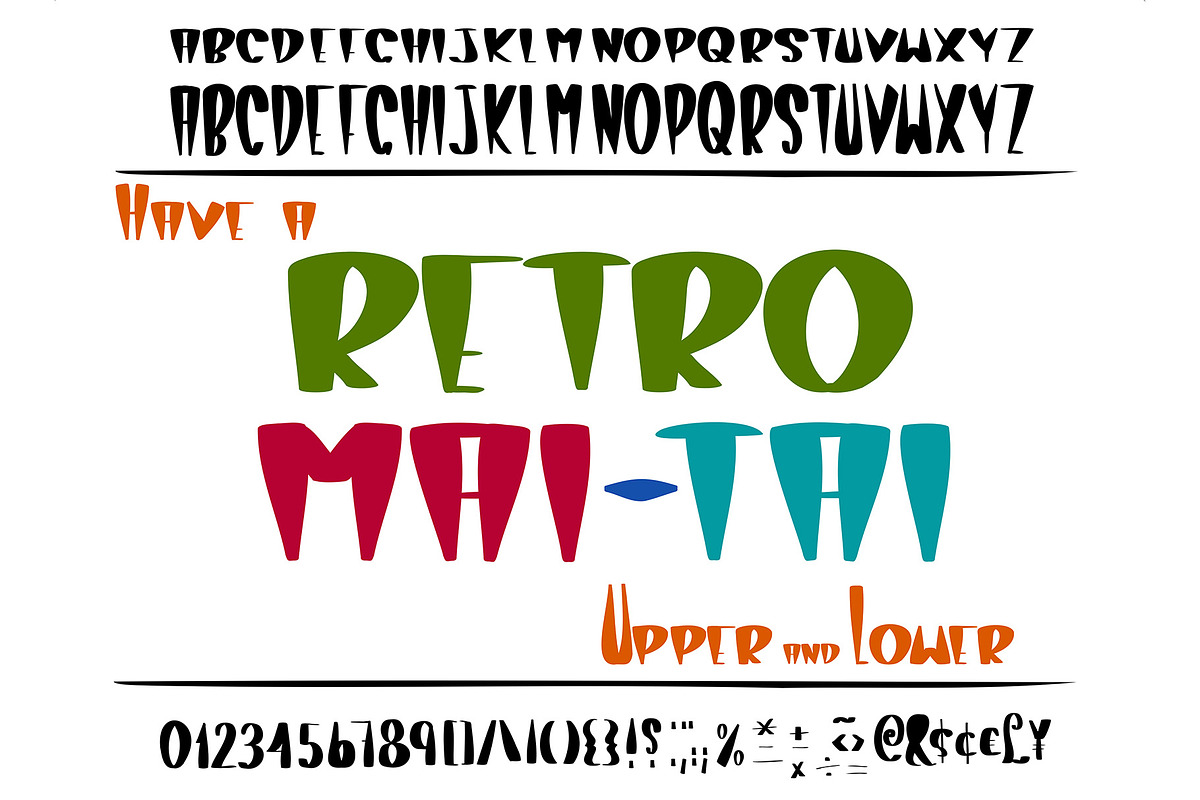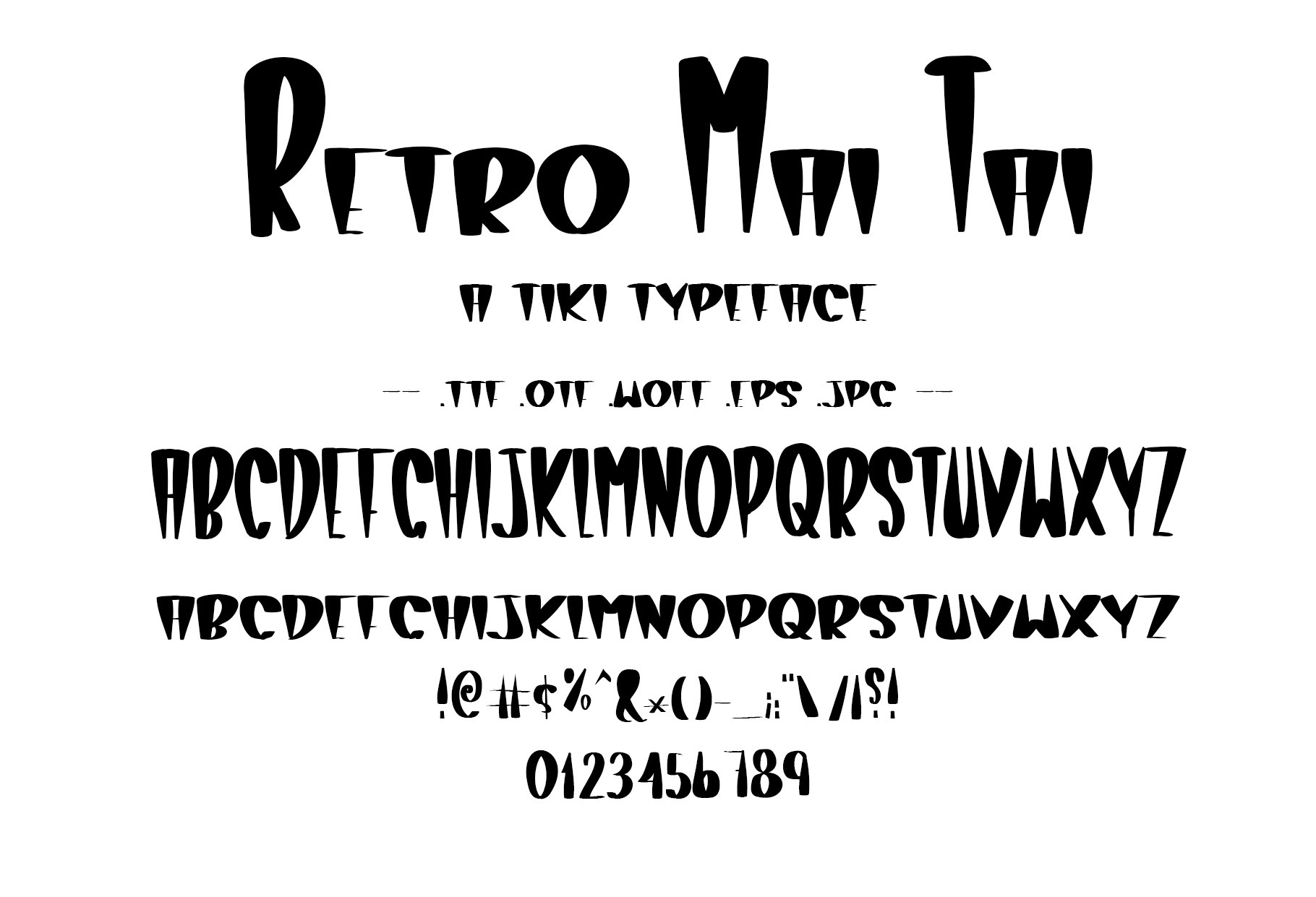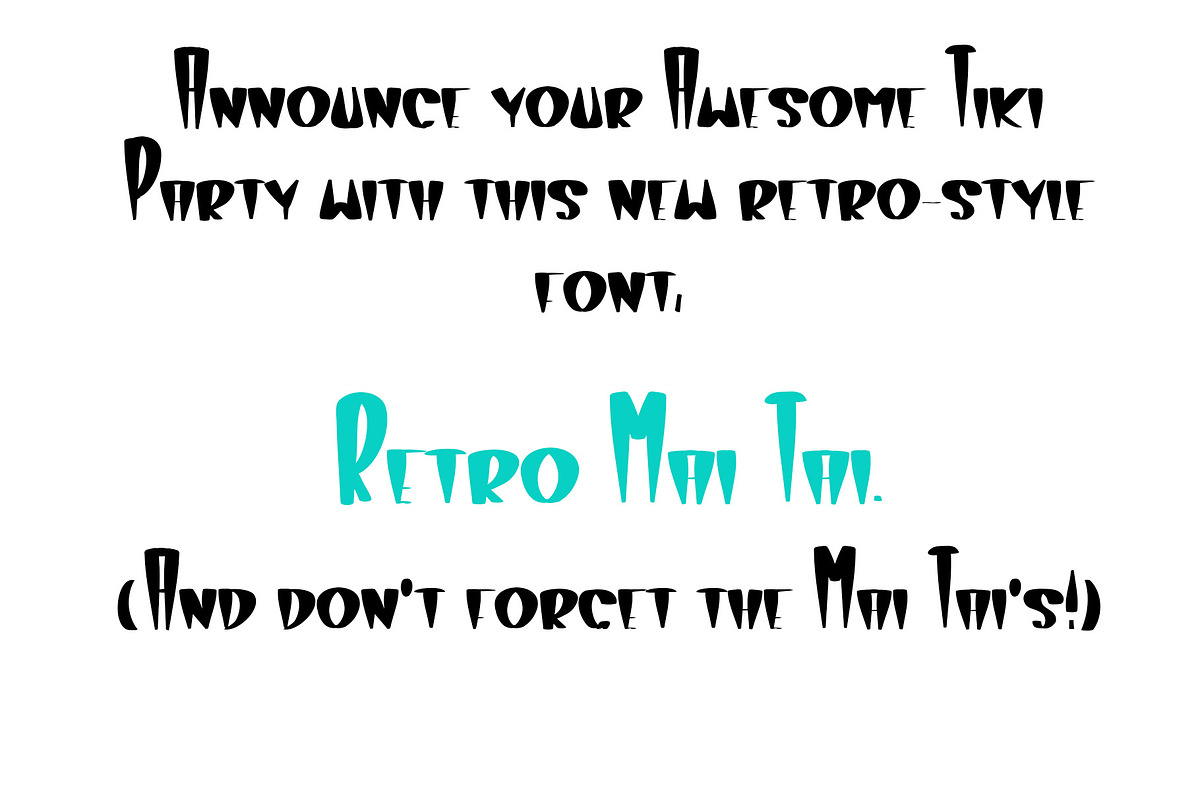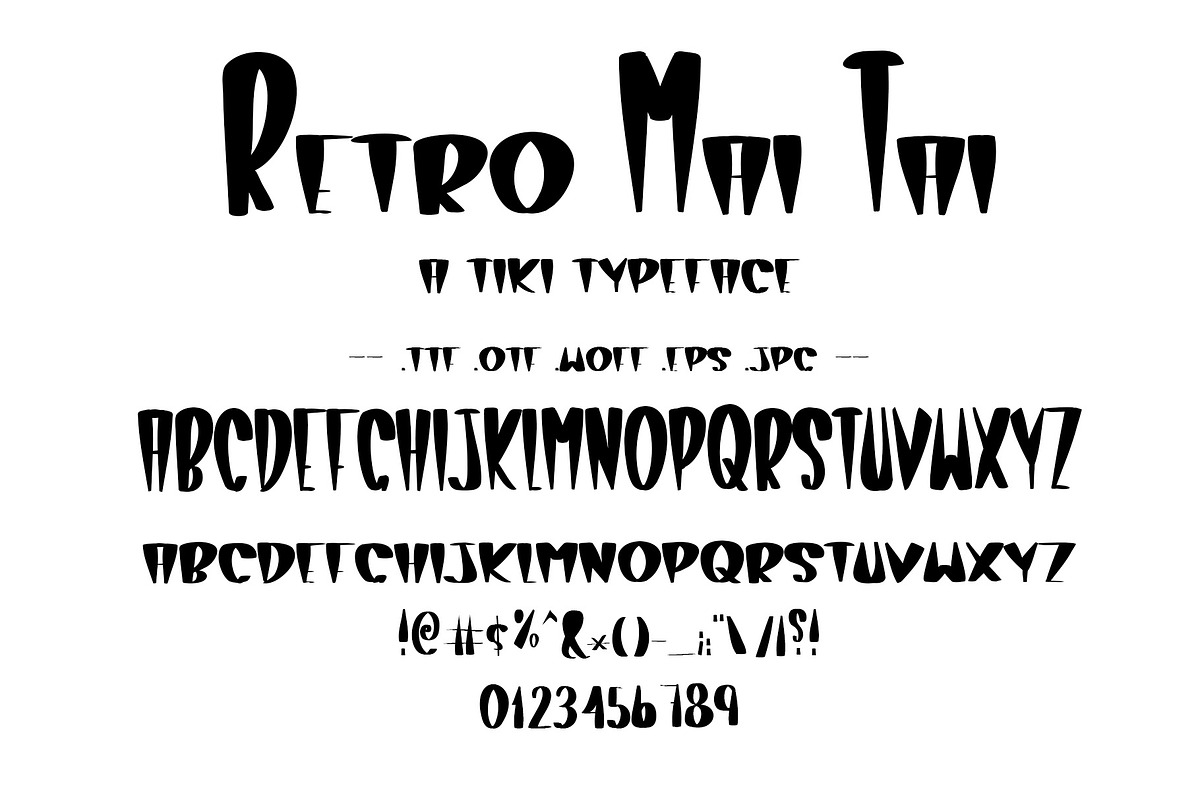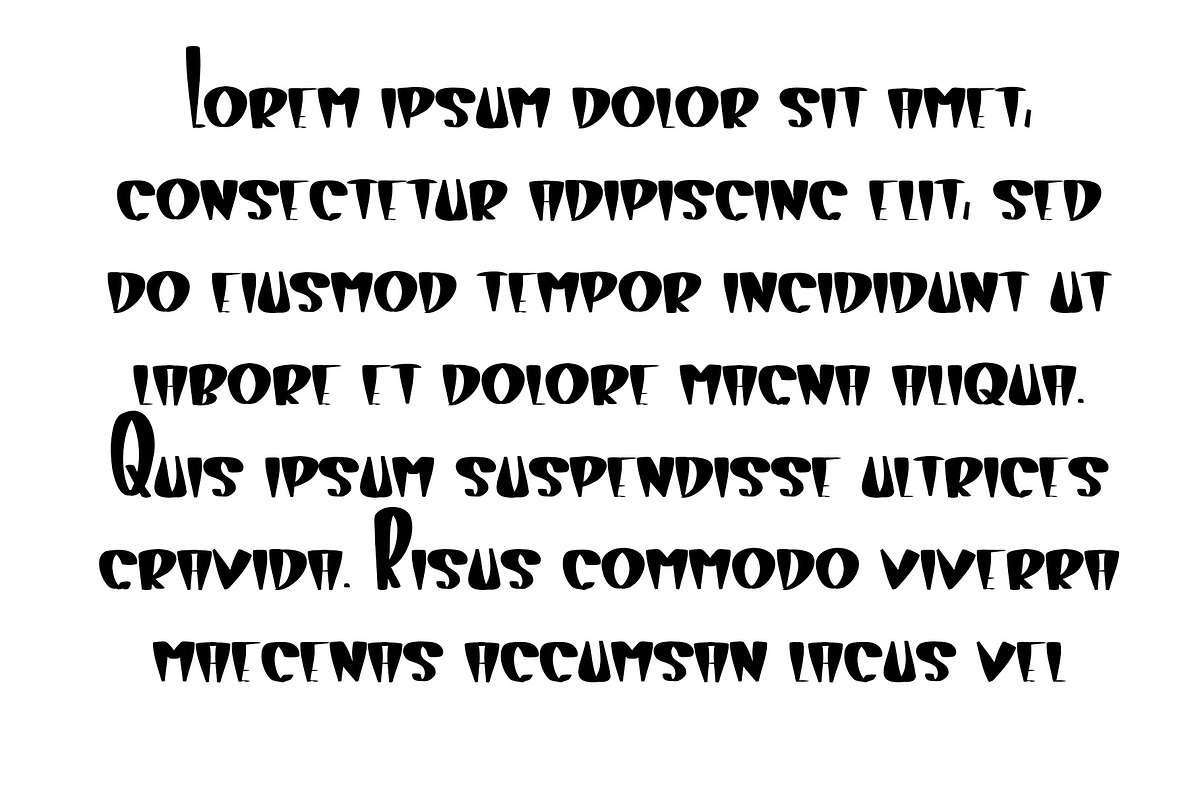
Tiki Font Retro Mai Tai Hawaiian
Hand Drawn Font called "Retro Mai Tai" Cute block letters with retro, Tiki style. Perfect for your Luau or Tiki party!